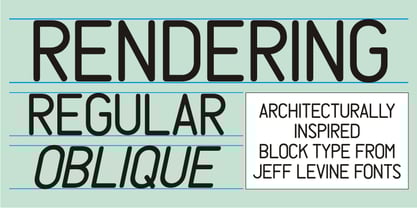
Rendering JNL Font
Rendering JNL Font is perfect for various design applications including architectural visualization materials, engineering firm presentations, construction company branding, technical drawing annotations, blueprint documentation, CAD software interfaces, industrial design portfolios, manufacturing specifications, technical manual headers, and professional rendering showcase designs. This precise typeface excels in projects requiring technical accuracy and professional clarity that communicates expertise and attention to detail in technical fields.
What makes Rendering JNL Font so exciting is its perfect embodiment of technical precision and professional clarity through letterforms that mirror the exactitude and clarity required in architectural and engineering documentation. The font features clean geometric construction, consistent stroke weights that ensure optimal legibility at all sizes, and precise character spacing that maintains readability in complex technical layouts. Its distinctive professional character and technical authenticity make it ideal for firms seeking to communicate competence, accuracy, and the sophisticated precision that defines excellent technical work.
The Rendering JNL Font family includes multiple weights and technical variations that enhance its versatility for different professional applications. Each style maintains the font's signature technical character while providing options for various documentation and presentation needs. The family also features specialized technical symbols, dimensional notation characters, and professional ligatures that ensure optimal performance in technical documentation and architectural rendering presentations.
Whether you're creating architectural presentations, engineering documentation, or technical communications, Rendering JNL Font Free Download delivers the typographic precision that professional technical fields demand. This typeface transforms routine documentation into polished presentations that reflect technical competence and professional standards. The font's authoritative appeal makes it particularly effective for architectural firms, engineering consultancies, and technical service providers who must project expertise and reliability to demanding professional clients.
Rendering JNL Font stands out through its masterful balance of technical functionality and professional aesthetics that ensures optimal performance in demanding technical environments. Its precisely calibrated proportions and engineering-inspired details guarantee excellent legibility in both print and digital technical applications, while its professional character adds credibility without overwhelming technical content. From detailed construction drawings to comprehensive project presentations, this font provides designers with tools to create communications that demonstrate technical excellence and celebrate the precision that defines outstanding professional work.